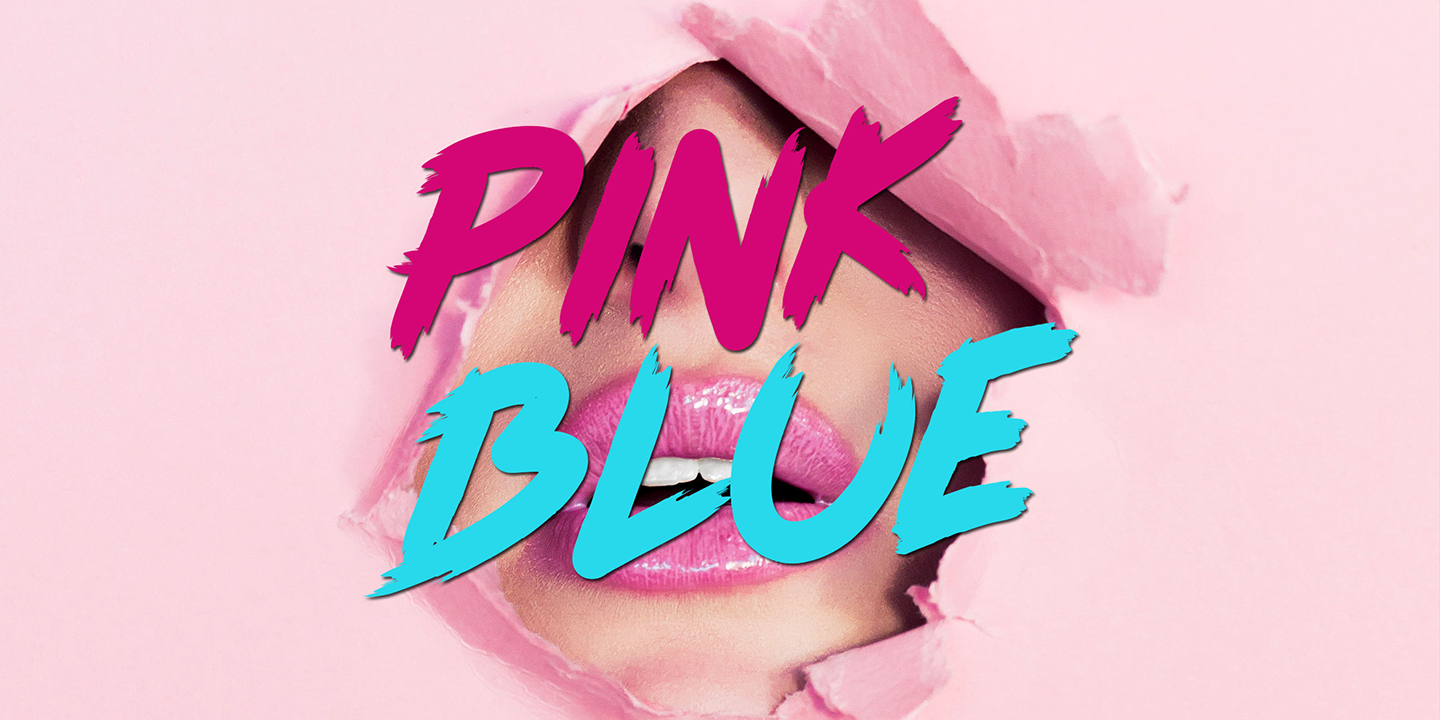
Pink Blue Font is perfect for gender-neutral baby products, inclusive children's branding, cotton candy festival graphics, dreamy sunset-themed designs, unicorn party invitations, creative bubble gum packaging, whimsical ice cream shop signage, playful toy store materials, colorful craft project labels, and imaginative children's entertainment venues. This vibrant typeface excels in applications where joyful color harmony and playful creativity need to be communicated with balanced charm and inclusive appeal that celebrates the beautiful spectrum of childhood wonder.
What makes Pink Blue Font exciting is its remarkable ability to blend the warmth of pink with the coolness of blue through its harmoniously designed letterforms that capture the magical moment when sunset meets twilight sky. The font embodies the spirit of inclusive play and balanced creativity with its cheerful construction and harmonious proportions that suggest the perfect blend of traditionally feminine and masculine color energies. Its carefully crafted character details and colorful personality create an atmosphere of joyful unity that resonates with modern families who embrace diversity and celebrate the full spectrum of childhood expression.
The Pink Blue Font family typically includes Regular and Bold weights, each maintaining the signature colorful characteristics and playful harmony. Some versions offer gradient effects that enhance the pink-blue aesthetic, outline styles that amplify the cheerful appeal, and decorative variants with enhanced whimsical elements. The family may also include shadow treatments and special character sets with colorful symbols that maximize the joyful visual impact for children's applications requiring inclusive representation.
Whether you're creating inclusive children's brands, colorful celebration materials, or harmonious design projects, Pink Blue Font Free Download delivers the perfect color balance your diversity-focused projects deserve. Its harmonious character and inclusive styling make it an invaluable choice for toy companies, children's entertainment venues, and progressive brands working in children's products, inclusive education, and family entertainment sectors where authentic diversity and joyful color expression are essential for creating welcoming environments that celebrate all children.